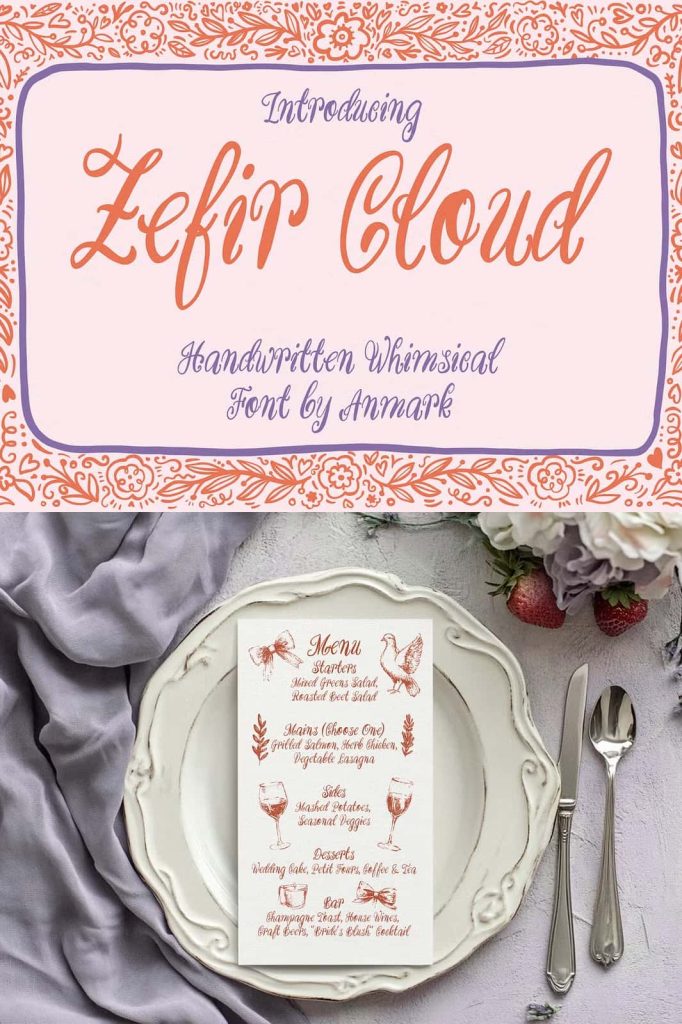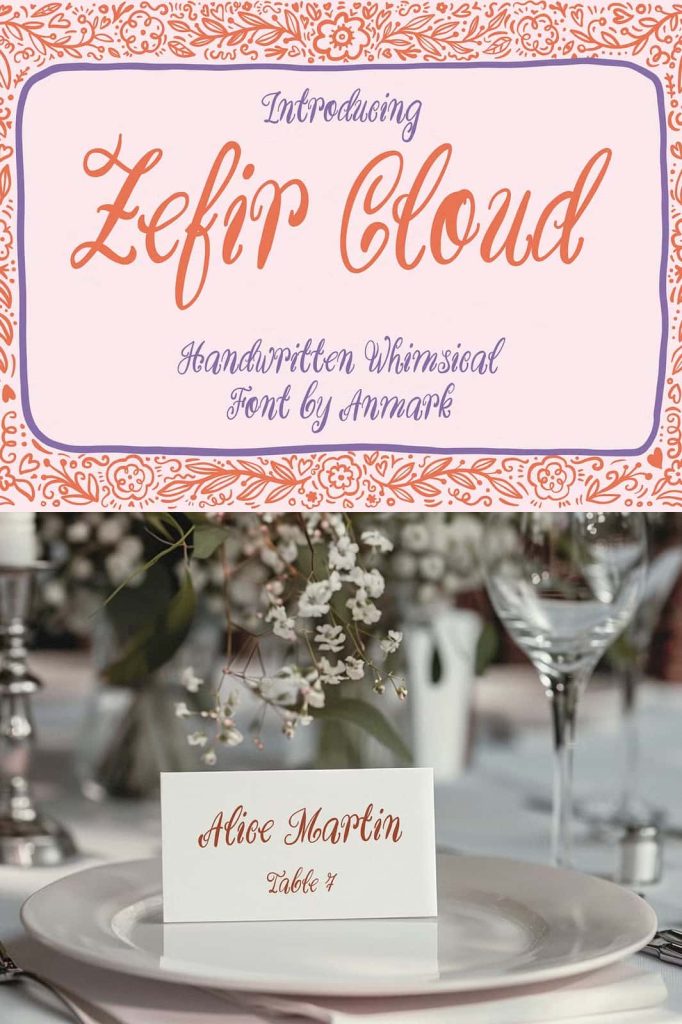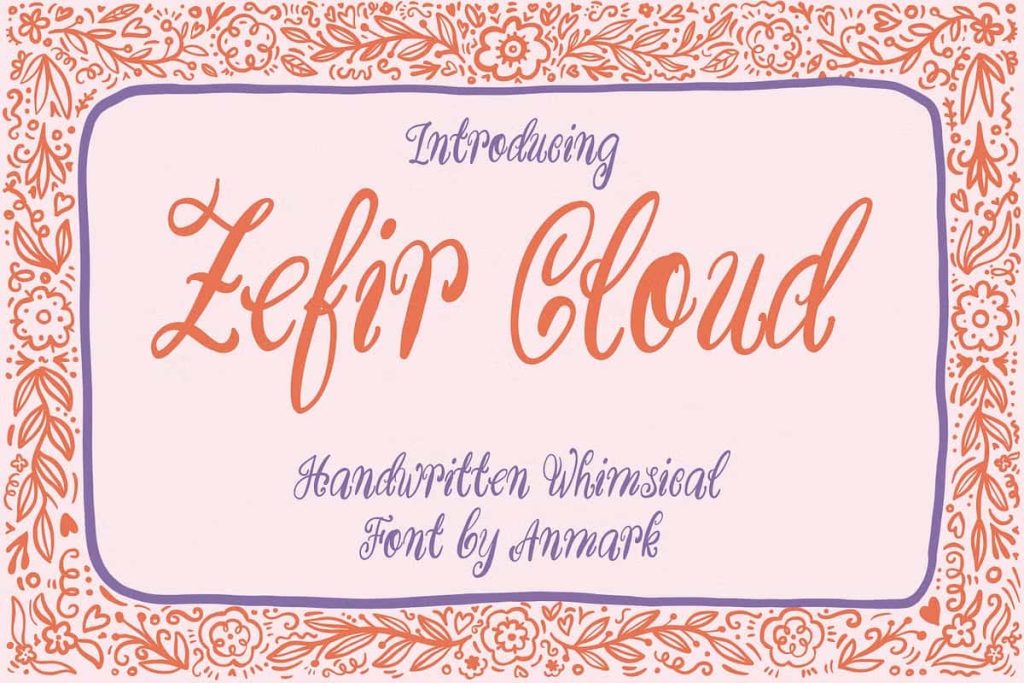
Zefir Cloud Whimsical Wedding FontcoreografyJuly 28, 2025Fonts Zefir Cloud is a charming, curly font perfect for all your whimsical wedding stationery needs. Download